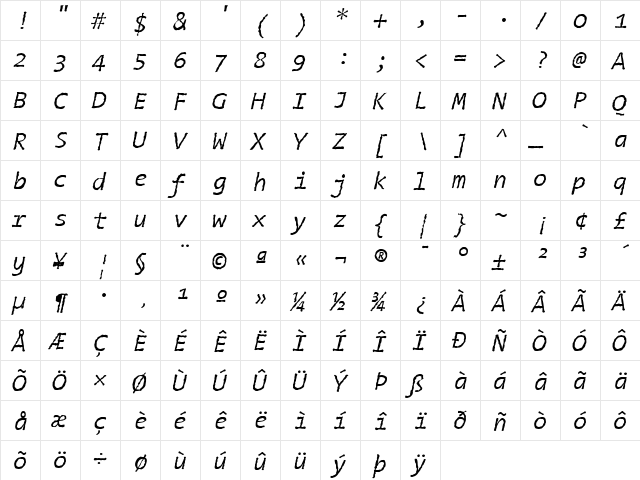
The Sans Typewriter- Italic
| Foundry | Luc\ as\ de Groot |
Design Context for The Sans Typewriter- Typeface
The Sans Typewriter- uses fixed-width spacing throughout, giving it the structured, systematic character associated with coding environments and technical documentation. The dynamic lean of this cut emphasises speed and emphasis in any layout.
Pro Tip: Pair The Sans Typewriter- with a proportional sans for UI contexts where code-style labels and regular body copy need to coexist.